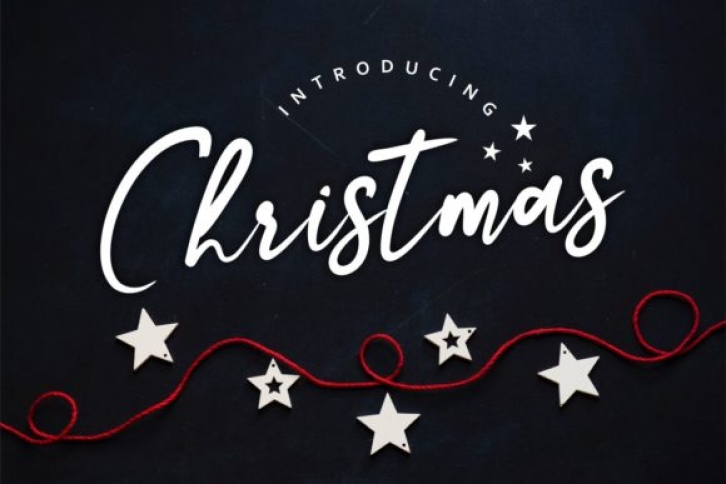
The Christmas is a fun script font. It has a smooth, handwritten style, which is perfect for branding projects, logos, product packaging, and more!
It can be used simply as a stylish text overlay to any background image, or anything requiring a sprinkle of elegance!